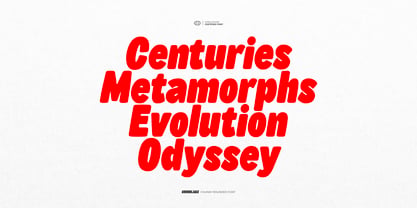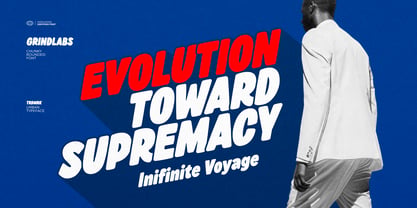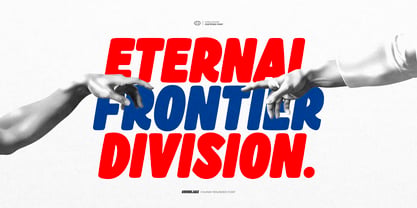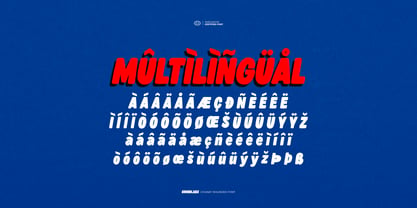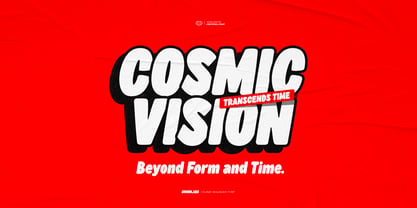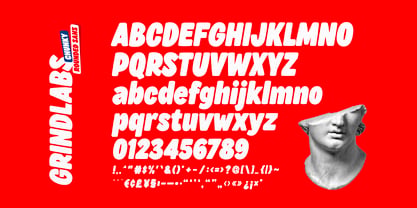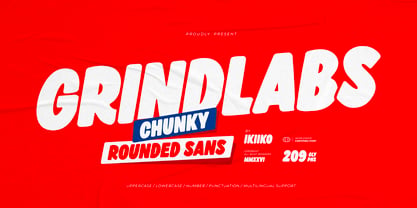
Grindlabs
von IKIIKOWRK
Die Schriftfamilie Grindlabs wurde von Andhika Pradana entworfen und von IKIIKOWRK veröffentlicht. Grindlabs enthält 1 Stile. Mehr über diese Familie
Proudly Present Supreme Bold - Chunky Rounded Sans, created by ikiiko Supreme Bold is an edgy, bold sans typeface built with a chunky, condensed structure and smooth rounded forms. Designed with an organic aesthetic in mind, this font delivers high energy and instant visual impact, making every word feel alive and expressive. With its bold weight, rounded edges, and condensed proportions, Supreme Bold creates a powerful yet playful balance between toughness and flow. The organic shapes give it a raw, handcrafted vibe, while the aesthetic styling keeps it modern, stylish, and visually striking. This font is made for creators who want an edgy, chunky, and bold typographic voice—something condensed, rounded, and organic that stands out in today’s fast-moving visual culture. This typeface is perfect for branding, streetwear, posters, logos, packaging, headlines, and bold digital visuals. What's Included? Uppercase & Lowercase Numbers & Punctuation Multilingual Support Works on PC & Mac Get also a good offer & FREEBIE at our site Enjoy our font and if you have any questions, you can contact us by email
Designer: Andhika Pradana
Foundry: IKIIKOWRK